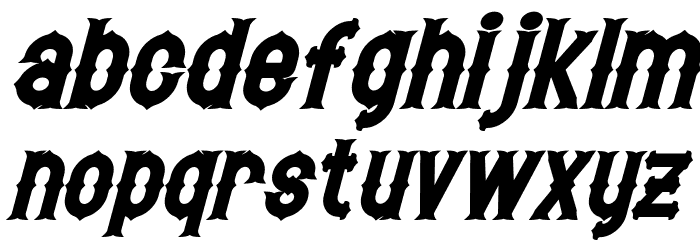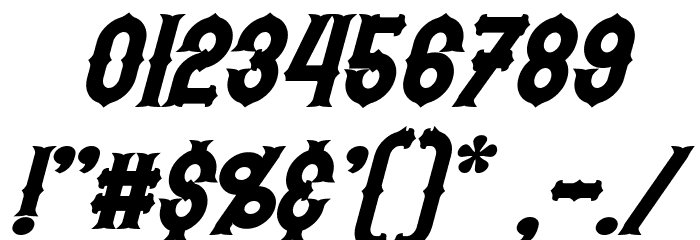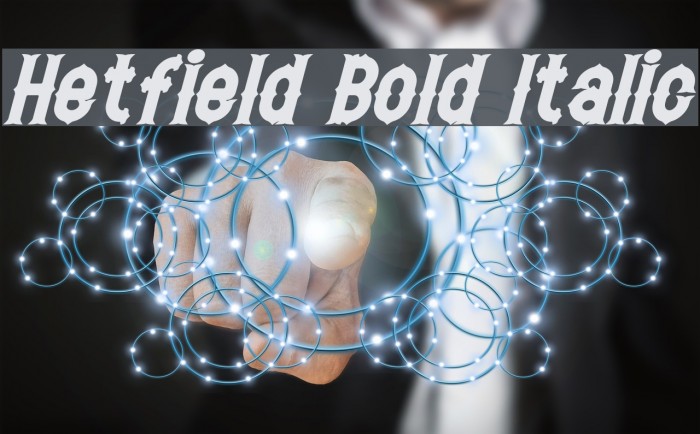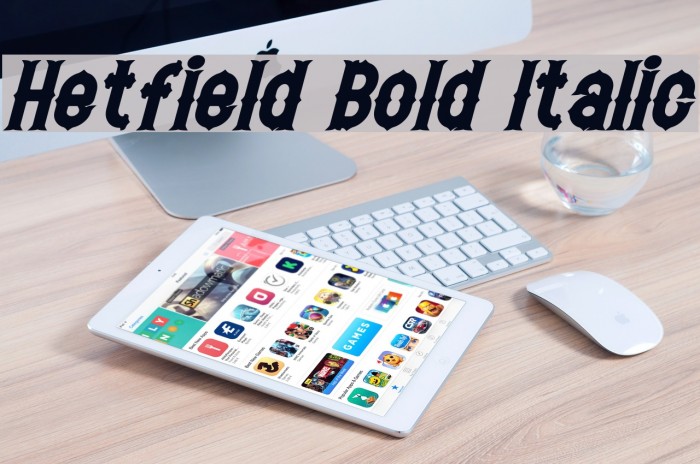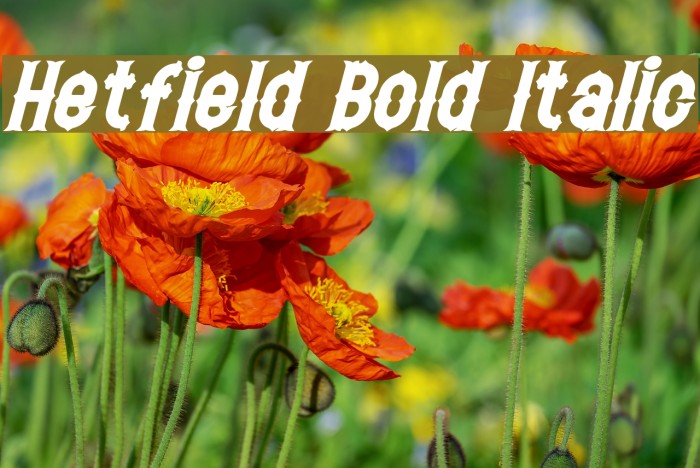
Hetfield Bold Italic Font
This font features a bold and italicized style with a strong, dynamic presence. The characters have a distinct, sharp edge and a slightly aggressive look, making them stand out with a unique flair. The strokes are thick and consistent, contributing to a robust and impactful appearance. The italic slant adds a sense of motion and urgency, while the bold weight ensures visibility and emphasis. This combination of boldness and slant creates a dramatic and eye-catching effect, suitable for making statements or grabbing attention.
A bold, italicized font with sharp edges and a dynamic presence.